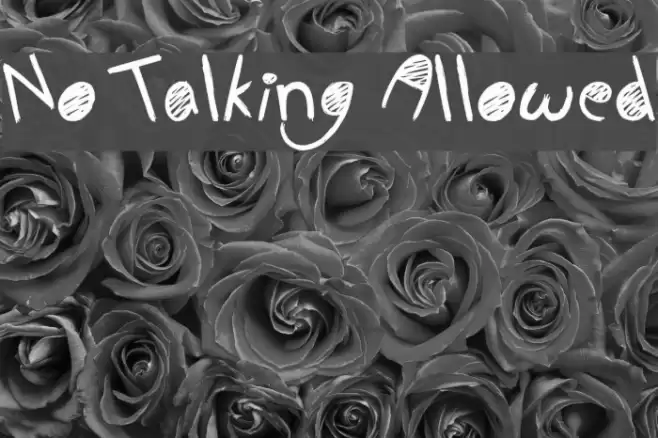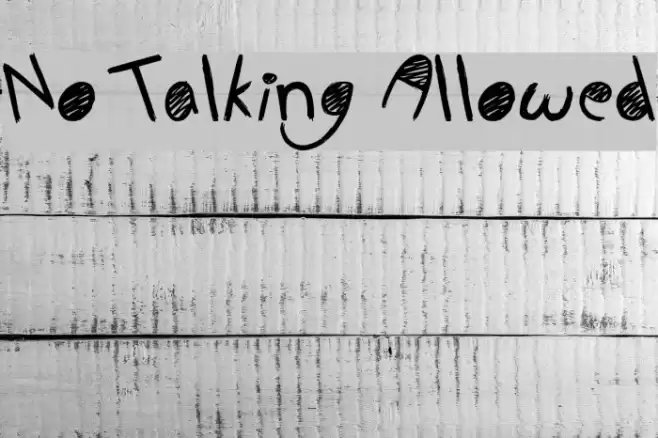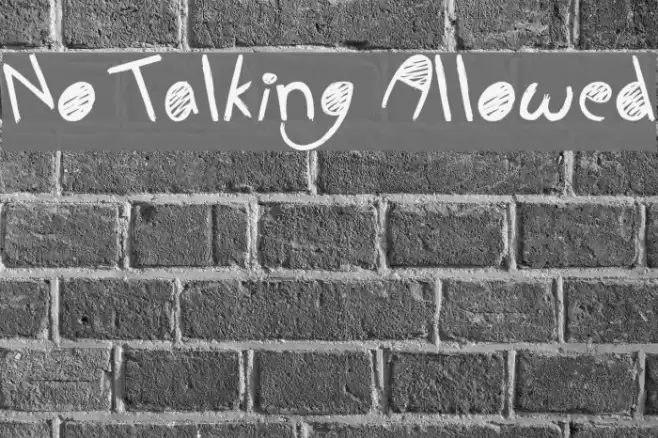
No Talking Allowed Font
No Talking Allowed Description
This playful and dynamic font features a hand-drawn, whimsical style with a sense of movement and energy. The letters are irregular and slightly tilted, giving them a casual and informal appearance. The strokes are bold and varied, with some letters having a filled-in look while others are outlined. This creates a lively and engaging visual effect. The font maintains a consistent baseline, but the heights and widths of the characters vary, adding to its quirky charm. The overall design is reminiscent of doodles or graffiti, making it suitable for creative and fun projects.
A playful, hand-drawn font with bold, irregular strokes and a whimsical style from Uncategorized fonts.
- Proposed Projects: Ideal for children's books, comic strips, playful branding, and creative posters.